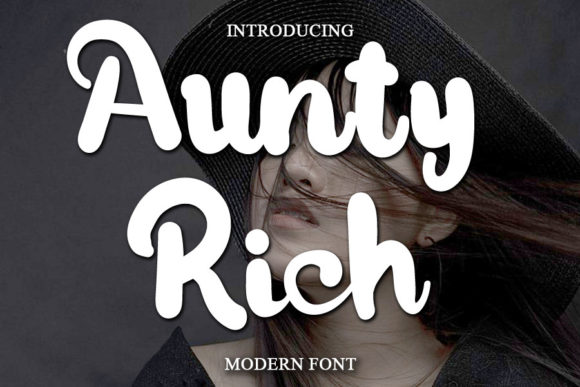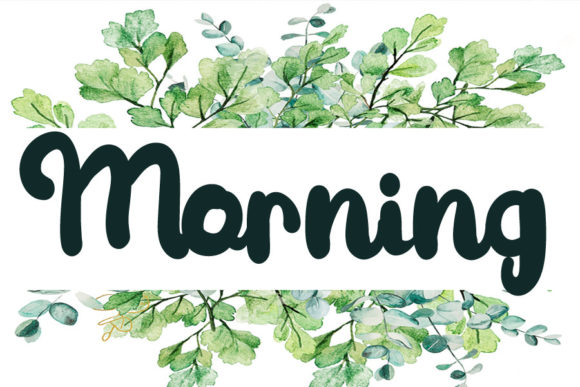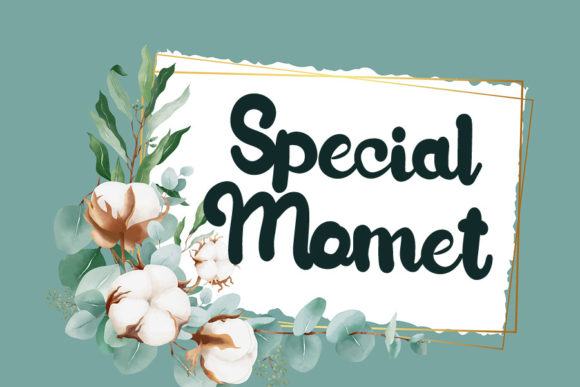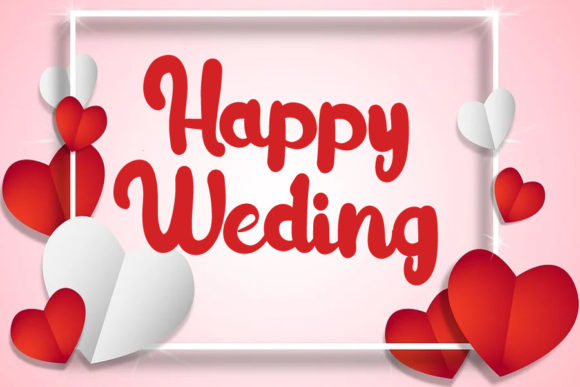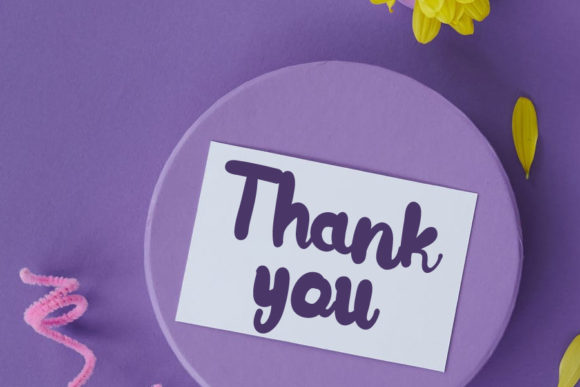
About Aunty Rich Font
Aunty Rich is a sweet, paint brushed handwritten font. It has beautiful and well balanced characters and as a result, it matches a wide pool of designs. Add it to your most creative ideas and notice how it makes them come alive!